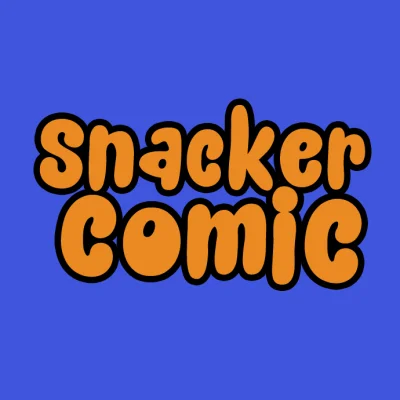
Snacker Comic Font
Snacker Comic Font is perfect for children's branding, comic book designs, snack food packaging, playful logos, kids' party invitations, cartoon merchandise, fun social media graphics, youth-oriented marketing, gaming applications, toy packaging, entertainment posters, and any design project requiring a fun and energetic comic book aesthetic.
What makes Snacker Comic Font exciting is its playful personality that instantly brings joy and energy to any design. The font's bold comic-style letterforms capture the essence of fun and entertainment, making it perfect for brands targeting younger audiences or anyone seeking lighthearted visual communication. Its approachable character creates instant connection with viewers while maintaining excellent readability, ensuring messages are both entertaining and effective.
The Snacker Comic Font family typically includes uppercase and lowercase characters, numerals, punctuation marks, and comic-style decorative elements that amplify its playful nature.
Looking for the Snacker Comic Font? This delightful typeface brings comic book energy and snackable fun to every design project, combining entertainment value with practical functionality. Whether you're creating children's products, developing playful brand identities, or crafting engaging marketing materials for casual audiences, this font provides the vibrant personality and comic charm needed to capture attention and spread smiles effortlessly.